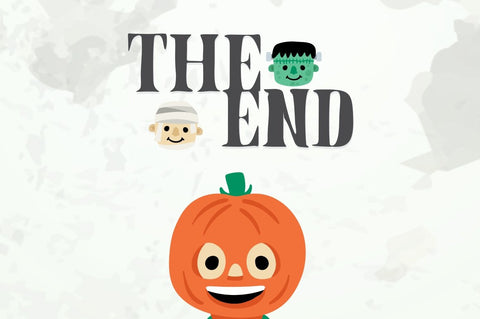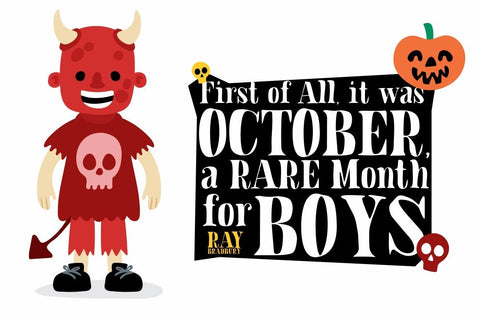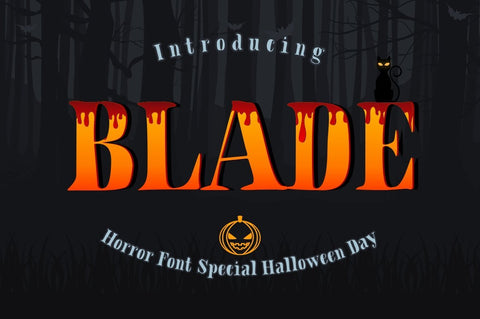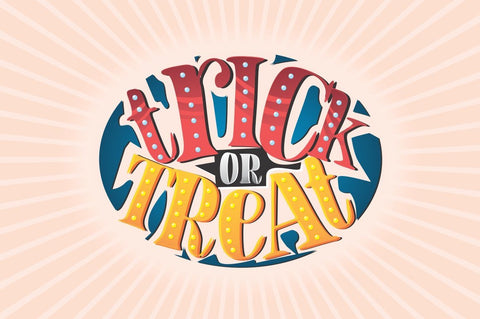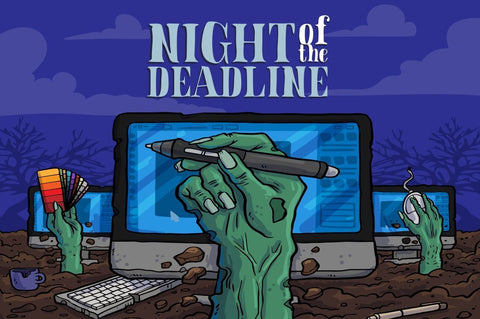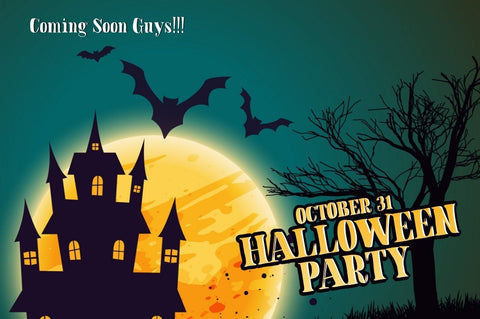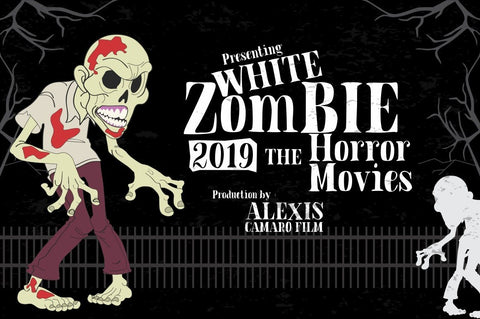
BLADE - Hallowen Font
Introducing Blade Font! This font has a natural serif style like handwriting, but still has asserted. Also has a style of horror so it is suitable to meet your design needs in order to welcome Hallowen day! I provide affordable prices for you! Please try!